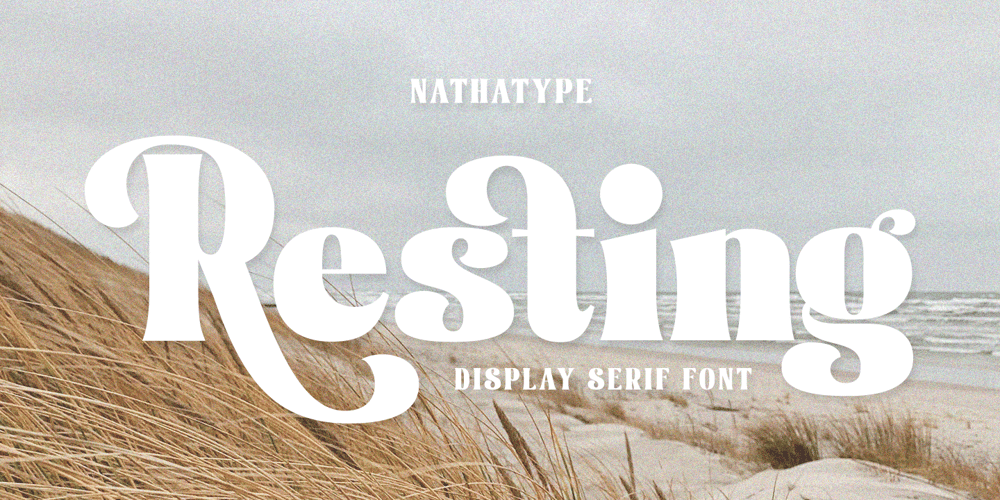
Resting Font Family was designed by Donis Miftahudin and published by Nathatype. Resting contains 1 styles and family package options. Font is the most important design element to increase your branding. However, it may be tricky and take quite a while to figure out the perfect font for your design.Resting is a perfect display serif font for any of your design projects. Serif font is a font type with sticky small lines on the letters’ edges expressing formal, classic nuances and more aesthetic, creative touches due to the display font combinations. This display font has thick, high contrast lines perfect for catching attention and creating firm impressions. In addition, use this font for big text sizes for a legibility reason and make use of the other interesting features to beautify your designs.Features: Stylistic Sets Ligatures Multilingual Supports PUA Encoded Numerals and Punctuations Resting fits best for various design projects, such as brandings, posters, banners, logos, magazine covers, quotes, headings, printed products, invitations, name cards, merchandise, social media, etc. Find out more ways to use this font by taking a look at the font preview.Thanks for purchasing our fonts. Hopefully, you have a great time using our font. Feel free to contact us anytime for further information or when you have trouble with the font. Thanks a lot and happy designing.